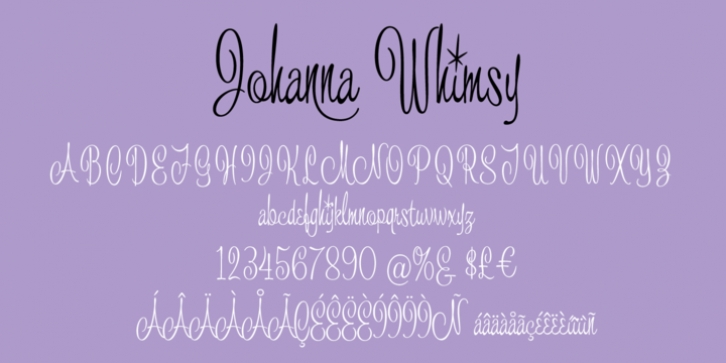
Johanna Whimsy is a fun light-hearted script font that is named after a friend of the designer who is a well known folk artist. The design was inspired by a hand lettered sample from the 1960s and has an engaging mid-century feminine style. The font features alternate versions of the h, i, n and m for some typographic variety. The typeface exudes delight and happiness and is perfect for a variety of designs.